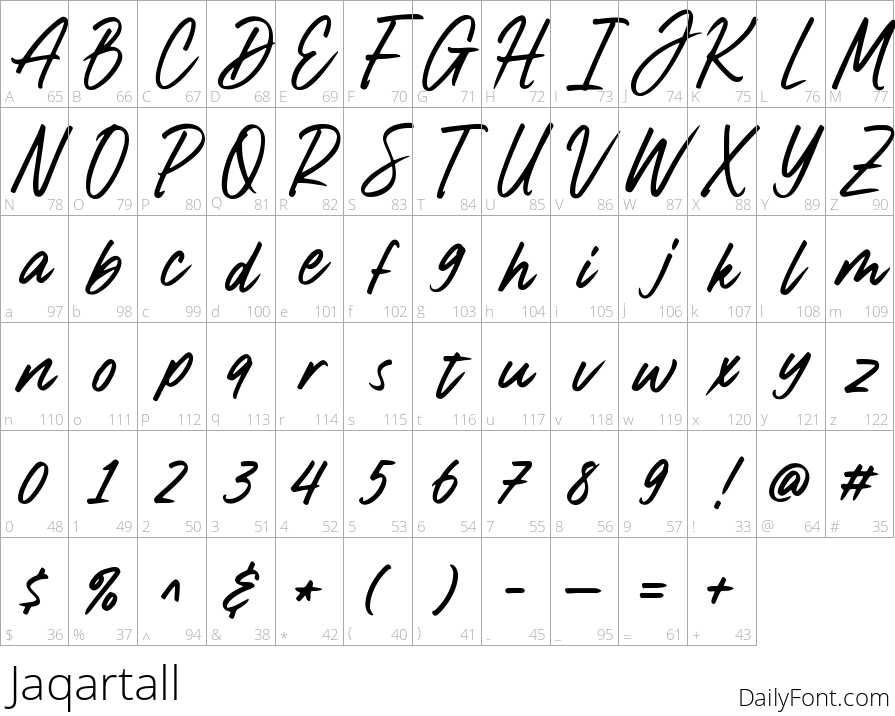
Jaqartall
Jaqartall is a dazzling script font that stands out with its neatly crafted, highly detailed letterforms. Designed for versatility, this font is perfect for a variety of creative projects, making it a valuable addition to your font library. Whether you're working on branding, invitations, or graphic design, Jaqartall adds a touch of elegance and sophistication. Its unique characteristics and fluid style allow it to adapt seamlessly to different themes and topics, ensuring that your designs remain visually engaging and memorable. Discover the beauty of Jaqartall and elevate your next design endeavor with this captivating script font.